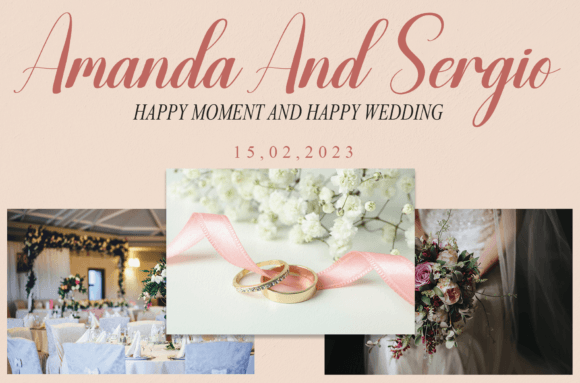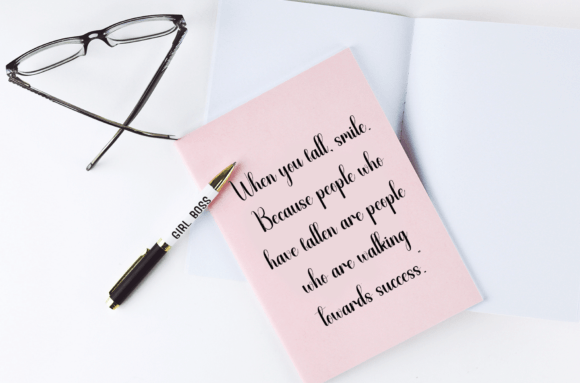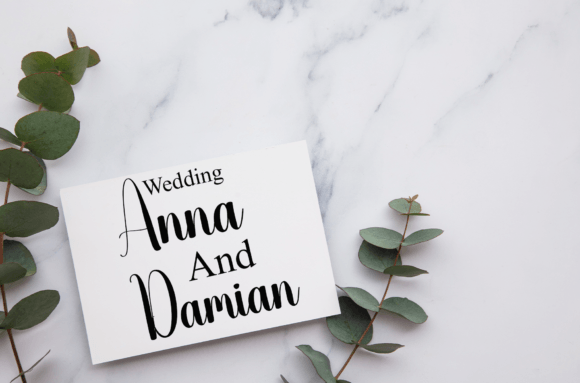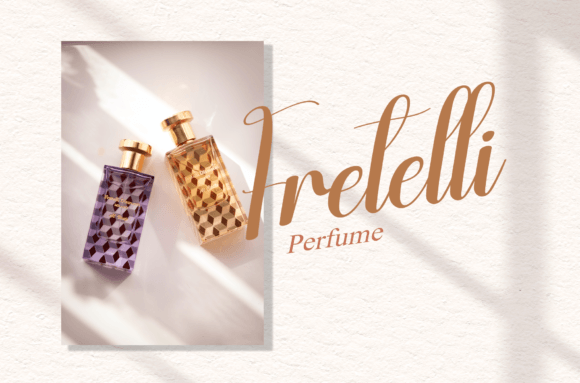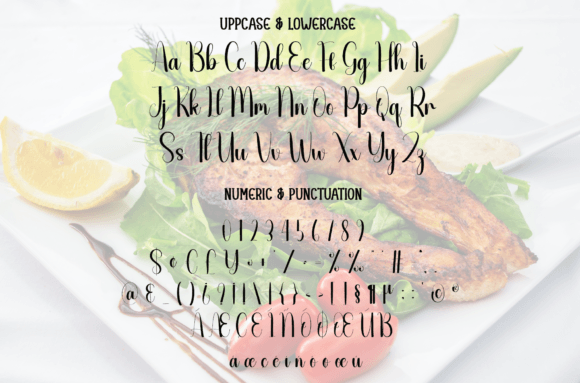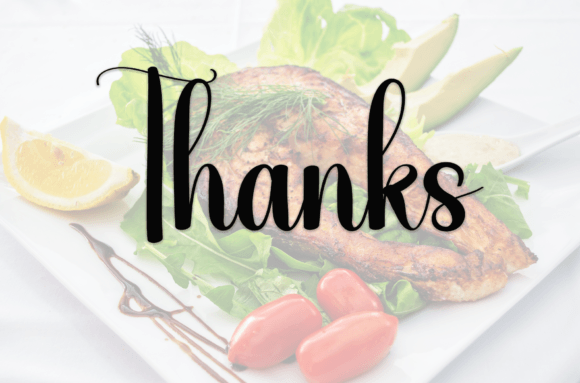
Introducing Grilled Fish Font: The Sweet and Friendly Handwritten Font for Your Creative Projects
Are you a designer or crafter looking for a font that can add a touch of warmth and personality to your creative projects? Look no further than Grilled Fish Font, a sweet and friendly handwritten font that’s perfect for a variety of applications. In this article, we’ll take a closer look at Grilled Fish Font, its features, and how you can use it to elevate your designs.
What is Grilled Fish Font?
Grilled Fish Font is a beautiful, handwritten font that’s designed to bring a sense of freshness and neatness to your designs. With its sweet and friendly appearance, this font is ideal for writing wedding invitations, cards, or any other design that might need a fun touch. Whether you’re a professional designer or a crafty DIY enthusiast, Grilled Fish Font is a versatile and easy-to-use font that can help you create stunning visual content.
Key Features of Grilled Fish Font
So, what makes Grilled Fish Font so special? Here are some of its key features:
- Sweet and Friendly Appearance: Grilled Fish Font has a warm and inviting appearance that’s perfect for creating designs that are both personal and engaging.
- Handwritten Style: This font features a beautiful, handwritten style that’s reminiscent of handwritten notes and letters.
- Fresh and Neat: Grilled Fish Font is designed to be fresh and neat, making it perfect for designs that require a sense of elegance and sophistication.
- Versatile: This font is versatile and can be used for a variety of applications, from wedding invitations and cards to posters and social media graphics.
Use Cases for Grilled Fish Font
So, how can you use Grilled Fish Font in your designs? Here are some use cases to consider:
- Wedding Invitations: Grilled Fish Font is perfect for creating beautiful and personalized wedding invitations that will make your guests feel special.
- Cards and Stationery: This font is ideal for creating a variety of cards and stationery, from birthday cards to thank-you notes.
- Posters and Flyers: Grilled Fish Font can add a touch of personality and whimsy to your posters and flyers, making them stand out from the crowd.
- Social Media Graphics: This font is perfect for creating social media graphics that are both fun and engaging.
Tips for Using Grilled Fish Font
Here are some tips for using Grilled Fish Font in your designs:
- Pair it with Other Fonts: Grilled Fish Font pairs well with other fonts, so don’t be afraid to experiment with different combinations.
- Use it for Headings and Titles: This font is perfect for headings and titles, where its sweet and friendly appearance can really shine.
- Experiment with Colors: Grilled Fish Font looks great in a variety of colors, so don’t be afraid to experiment and find the perfect hue for your design.
In conclusion, Grilled Fish Font is a sweet and friendly handwritten font that’s perfect for designers and crafters who want to add a touch of personality and whimsy to their creative projects. With its fresh and neat appearance, this font is ideal for a variety of applications, from wedding invitations and cards to posters and social media graphics. Whether you’re a professional designer or a crafty DIY enthusiast, Grilled Fish Font is a versatile and easy-to-use font that can help you create stunning visual content.